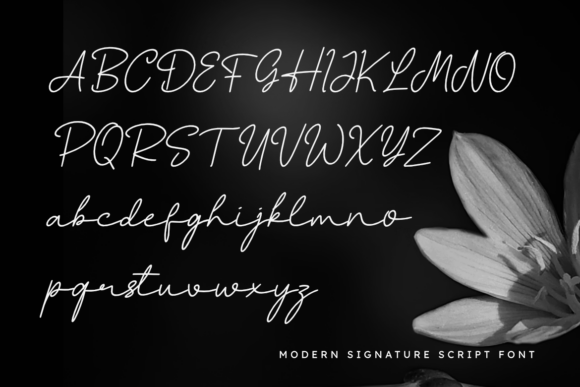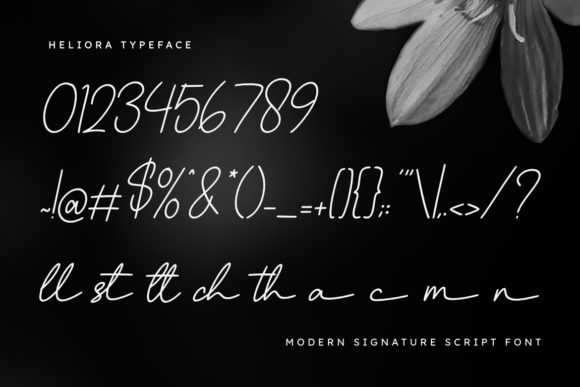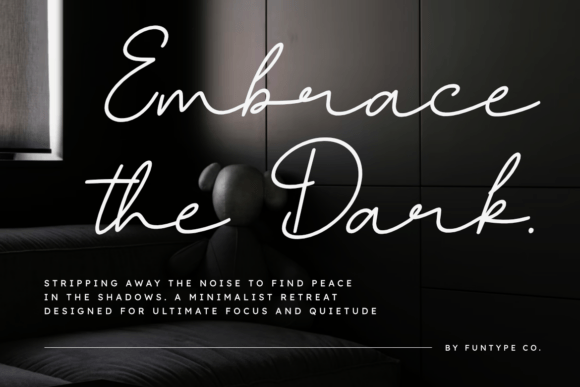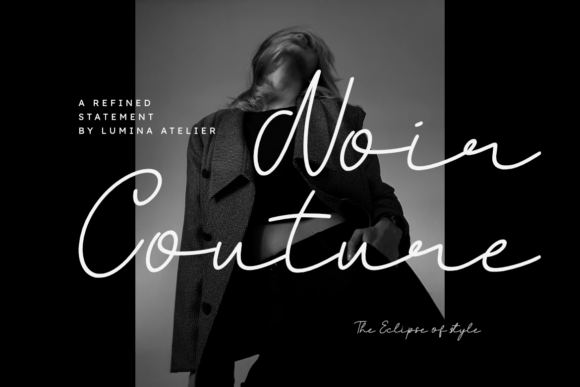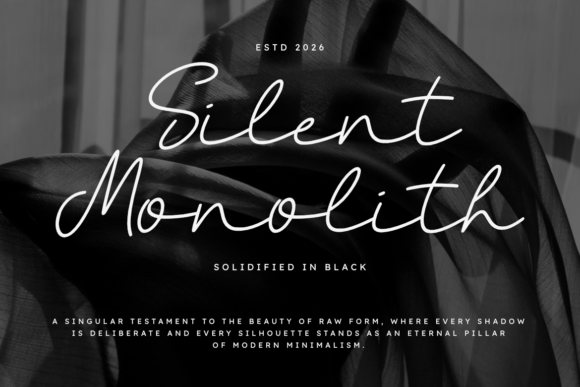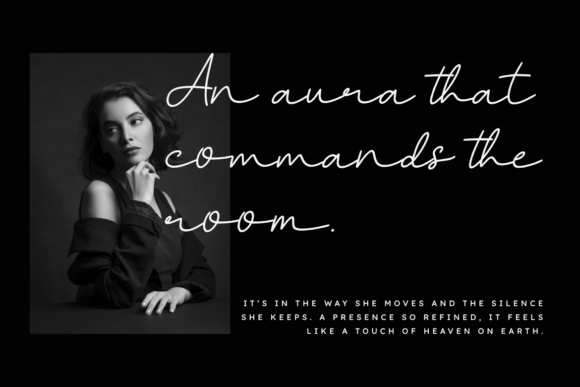
Introducing Heliora Font: Elevate Your Design with Bold Elegance
In the world of typography, a well-crafted font can make all the difference in creating a lasting impression. For designers and crafters seeking to make a bold statement, Heliora Font is an exceptional choice. This stunning signature script font is specifically designed to deliver impactful typography, perfect for a wide range of applications, from strong headlines and modern posters to album covers, sports graphics, branding, and high-impact advertising.
The Power of Heliora Font
Heliora Font boasts a tall structure and compact width, making it an ideal choice for designers looking to create a strong visual impact. Its clean and confident design gives your visuals a striking and professional look that’s sure to capture the attention of your audience. Whether you’re working on a high-end brand campaign or a creative project, Heliora Font provides the perfect blend of elegance and boldness.
Key Features of Heliora Font
- Bold and Elegant: Heliora Font is designed to make a statement with its bold and elegant signature script style.
- Tall Structure: The font’s tall structure ensures that your text stands out and commands attention.
- Compact Width: The compact width of Heliora Font makes it perfect for use in a variety of applications, from posters and album covers to sports graphics and branding.
- Clean and Confident Design: The font’s clean and confident design gives your visuals a professional and striking look.
Heliora Font is an incredibly versatile font that can be used in a wide range of applications, including:
- Strong Headlines: Create eye-catching headlines that demand attention with Heliora Font.
- Modern Posters: Add a touch of elegance and sophistication to your posters with this stunning font.
- Album Covers: Give your music a professional and stylish look with Heliora Font.
- Sports Graphics: Create bold and dynamic sports graphics with this confident font.
- Branding: Establish a strong brand identity with Heliora Font’s unique and elegant style.
- High-Impact Advertising: Make a lasting impression with your advertising campaigns using this powerful font.
Why Choose Heliora Font?
With so many fonts available, why choose Heliora Font? Here are just a few reasons why designers and crafters are falling in love with this exceptional font:
- Unique Style: Heliora Font offers a distinctive and stylish alternative to more traditional fonts.
- High-Quality Design: The font’s clean and confident design ensures that your visuals look professional and polished.
- Versatility: Heliora Font can be used in a wide range of applications, making it a valuable addition to any designer’s toolkit.
| Font Name | Heliora Font |
| Author | Funtype Co. |
If you’re looking for a bold and elegant font that can elevate your design to the next level, look no further than Heliora Font. With its tall structure, compact width, and clean design, this font is perfect for creating strong headlines, modern posters, album covers, sports graphics, branding, and high-impact advertising. Whether you’re a designer or crafter, Heliora Font is an exceptional choice for anyone seeking to make a lasting impression.